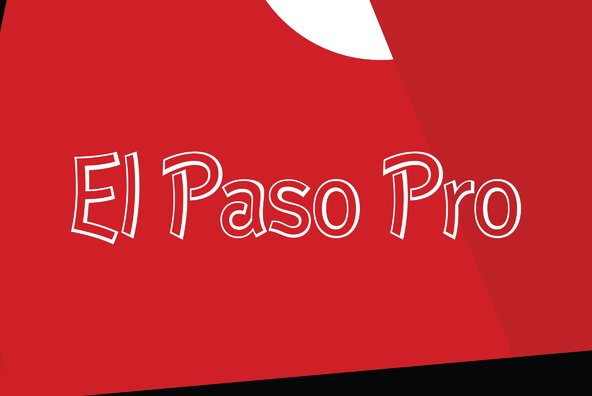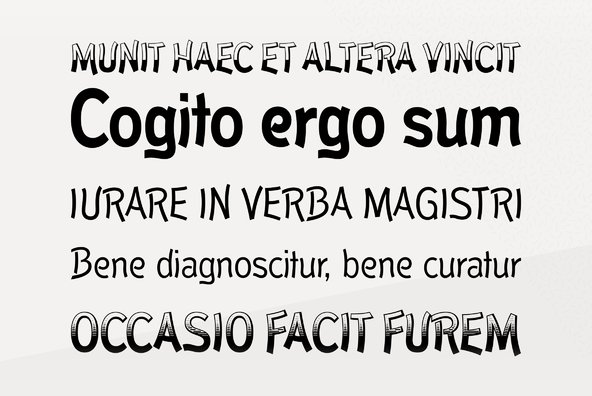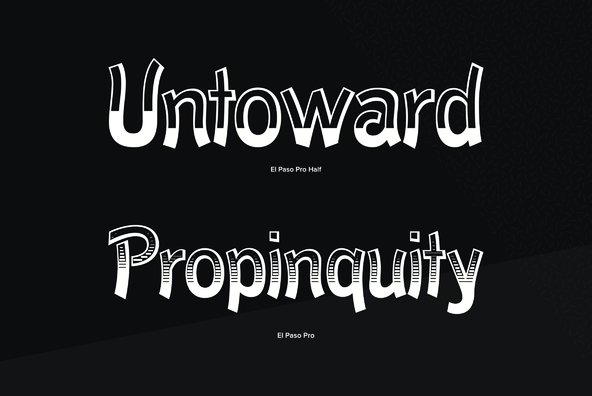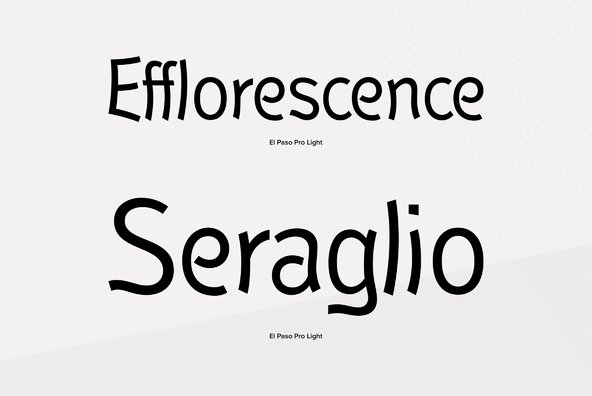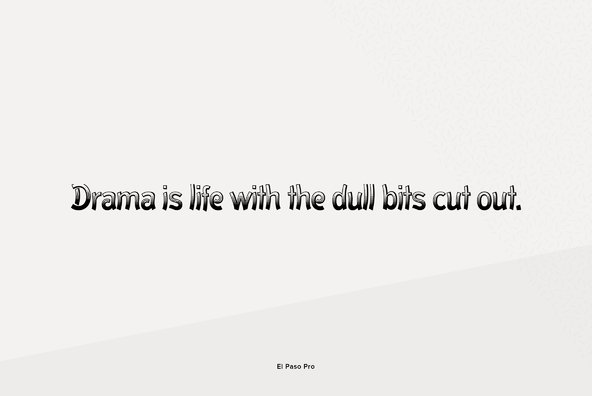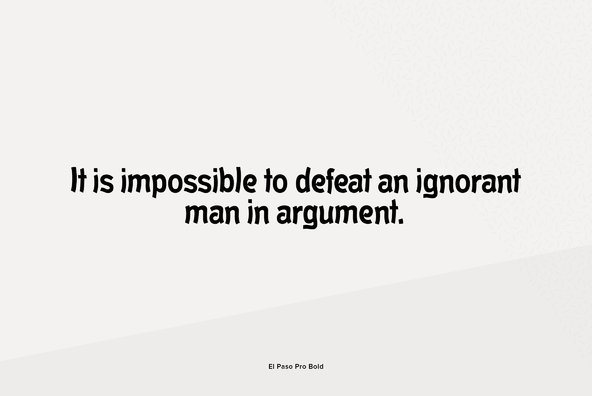
El Paso Pro
In the 1970s, Face Photosetting in London was known as the preeminent typesetting house in London. Steve worked in the studio in Newman Street and Hanway Place. El Paso Pro is a family of typefaces based on a unique single font design from the Face Collection, called El Paso.